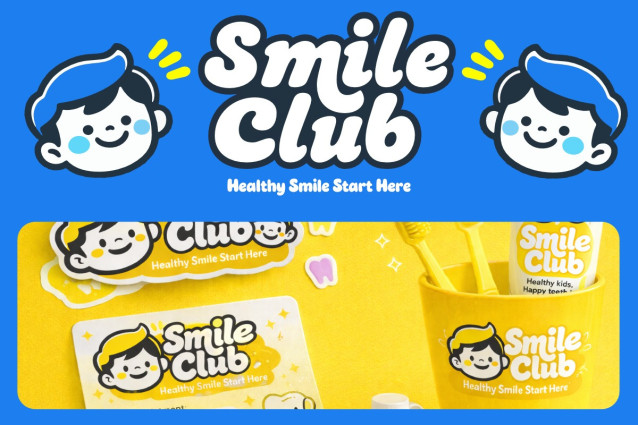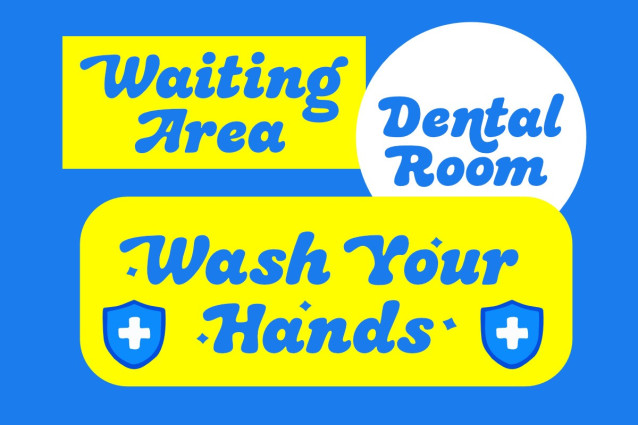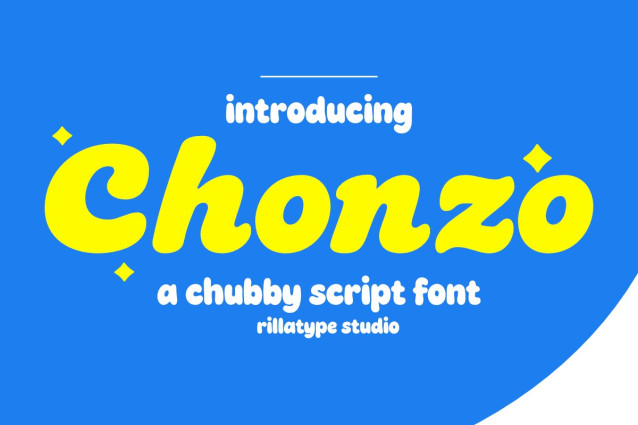
RT Chonzo Font
RT Chonzo Font is a chubby script font with thick strokes, rounded shapes, and a playful handwritten feel. The letters look bold, soft, and friendly, giving off a cheerful and energetic vibe that feels fun and approachable. It works great for headlines, posters, packaging text, social media graphics, and branding designs that want a bright and easygoing look.